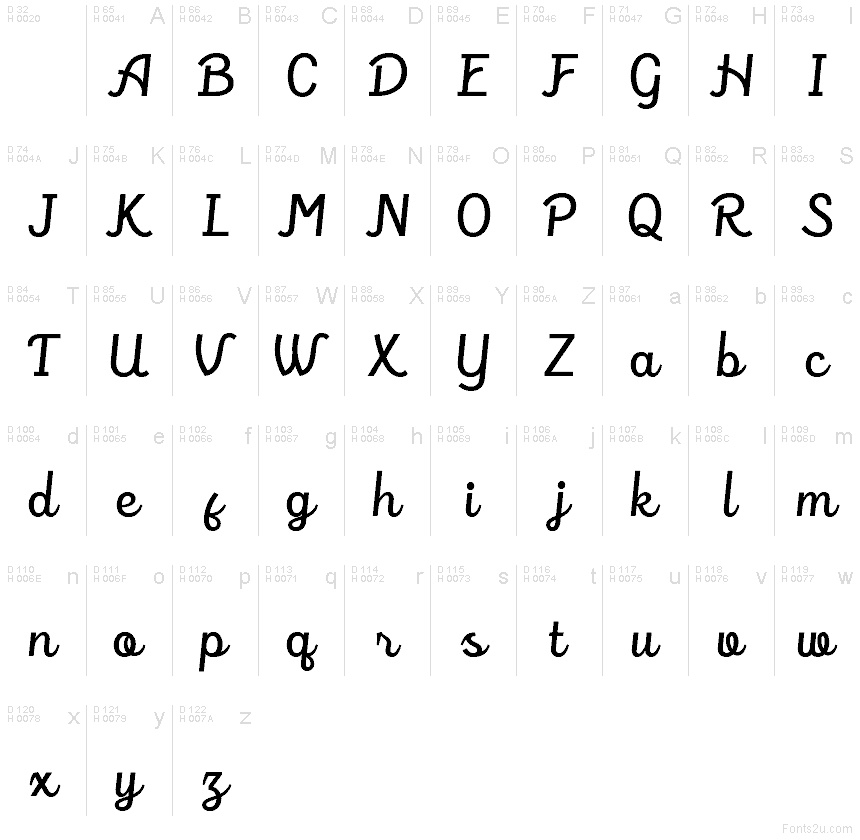
CS Rafles Regular Demo
CS Rafles font by Craft Supply Co. is a free medium-weight monoline calligraphy script font. It solves the classic script dilemma: charming but hard to read. Here, smooth inky strokes, open counters, and a gentle rightward slant keep words breezy yet clear, while rounded terminals and a light bounce add warmth without clutter.
Using CS Rafles, you can confidently set boutique logos, product labels, wedding suites, cafe menus, social quotes, and hang tags that need personality and legibility in equal measure. This free font shines at medium-to-large sizes, and pairs naturally with a clean grotesk sans—try a subtle negative tracking to keep the flow tight and polished.